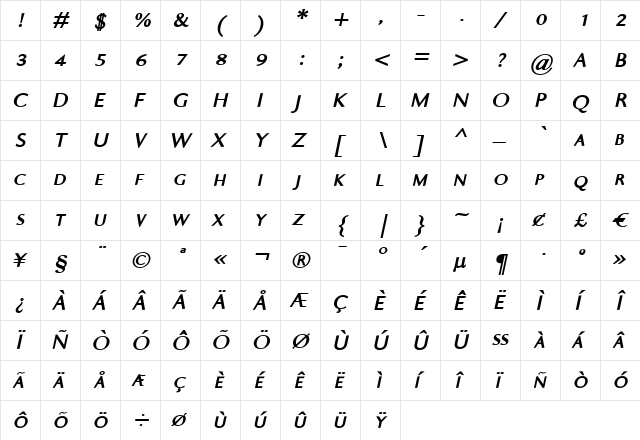
Ela Sans XBold Caps Italic
Design Context for Ela Sans XBold Caps Typeface
Ela Sans XBold Caps offers clean, dependable letterforms without strong stylistic allegiance, making it a practical choice for designers who need flexibility. The slanted form adds forward momentum and visual energy. The heavy weight commands attention and anchors typographic hierarchies.